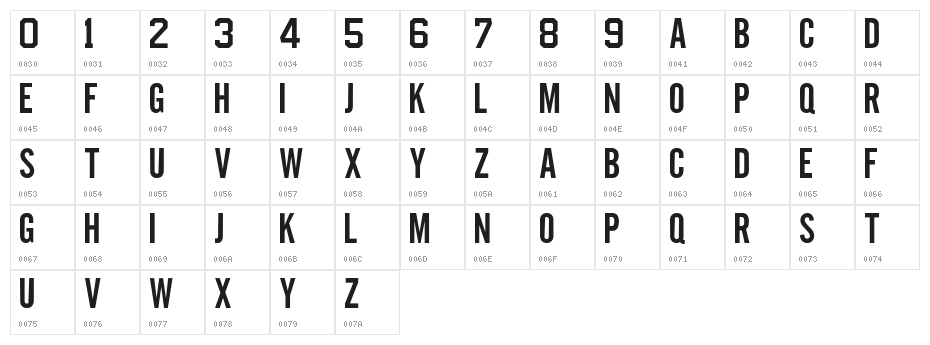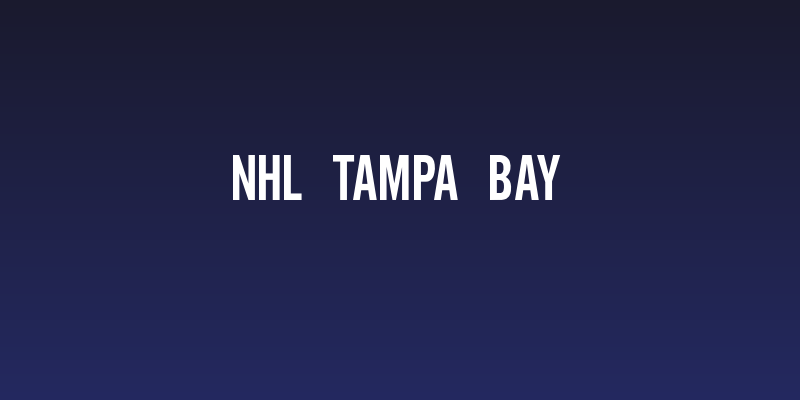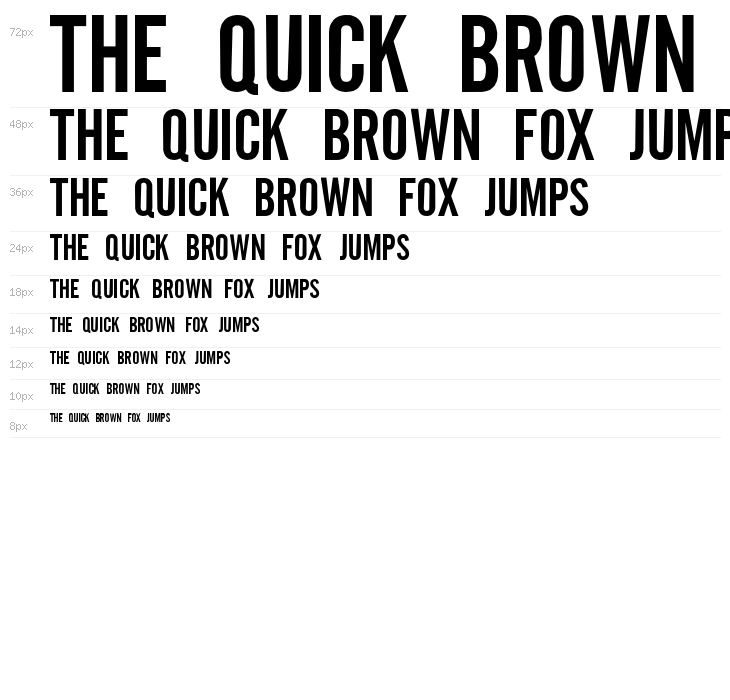
NHL Tampa Bay Font
NHL Tampa Bay Description
This font features bold, uppercase letters with a strong, athletic style, reminiscent of sports team branding. The characters are blocky and robust, with a uniform stroke width that conveys strength and stability. The numbers follow the same bold and impactful design, making them ideal for use in contexts where visibility and clarity are paramount. The absence of lowercase letters and special characters suggests a focus on straightforward, impactful communication. The overall aesthetic is clean and modern, suitable for applications that require a bold statement.